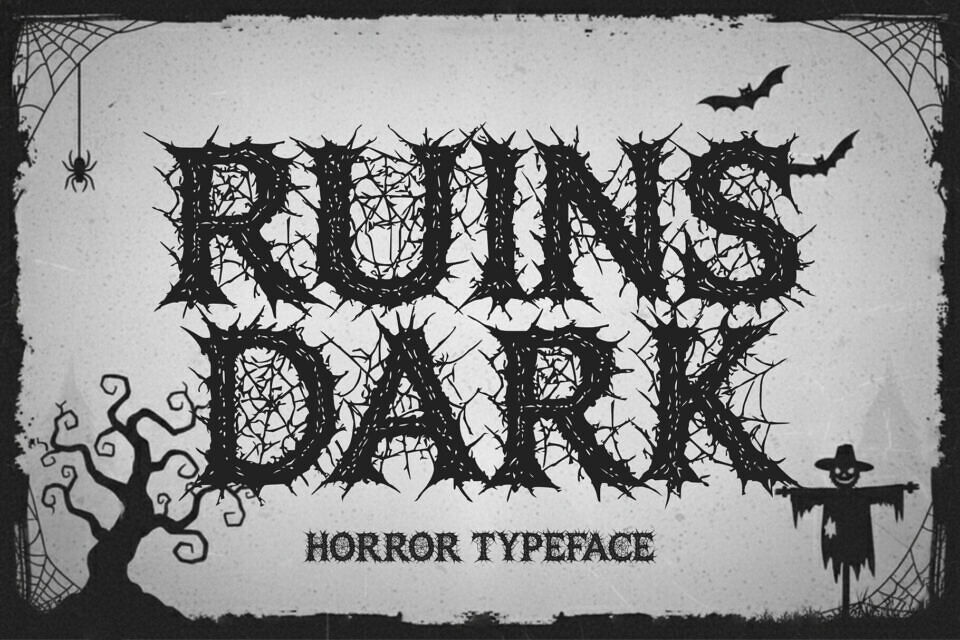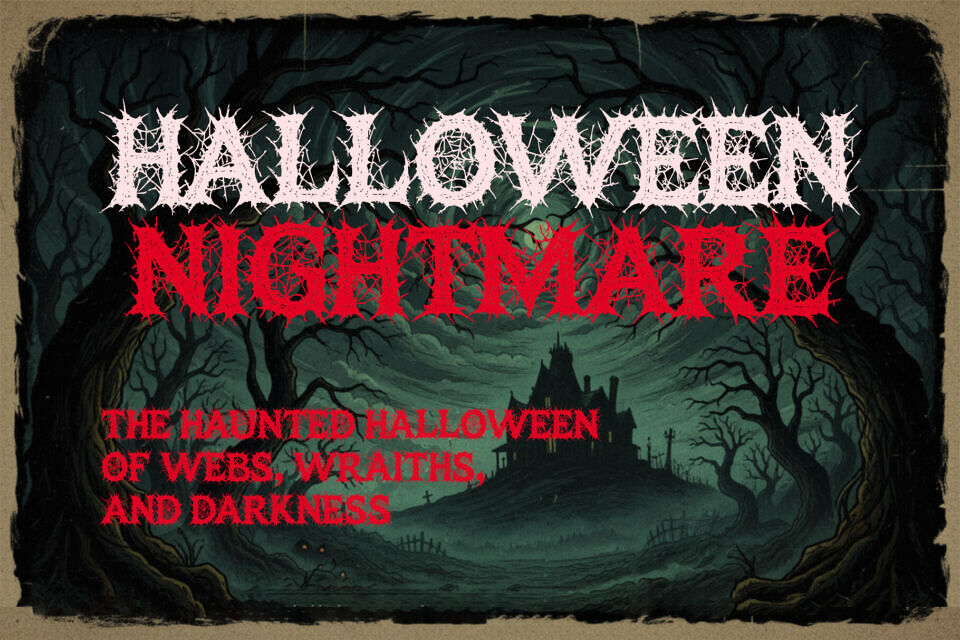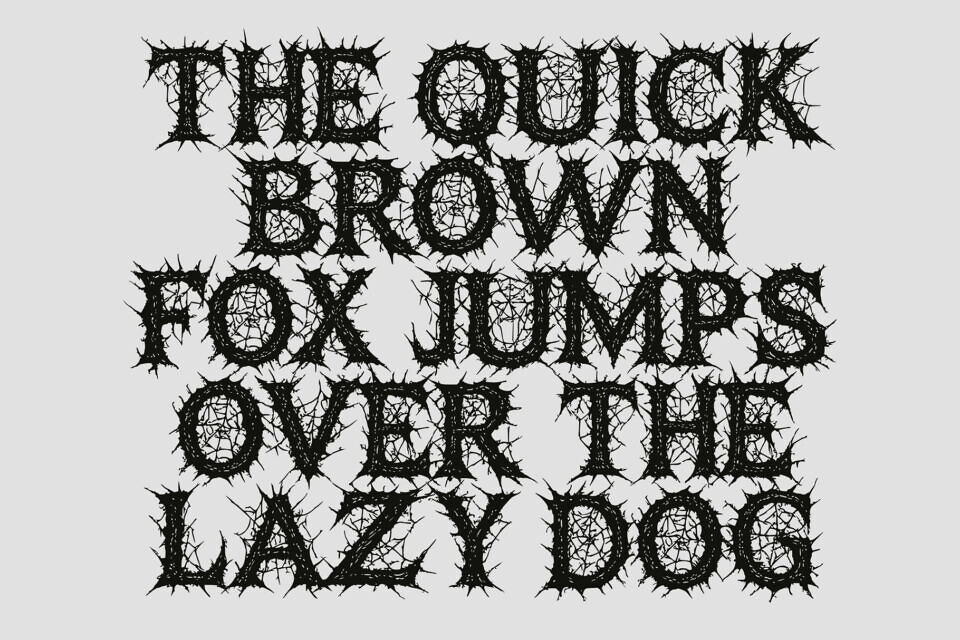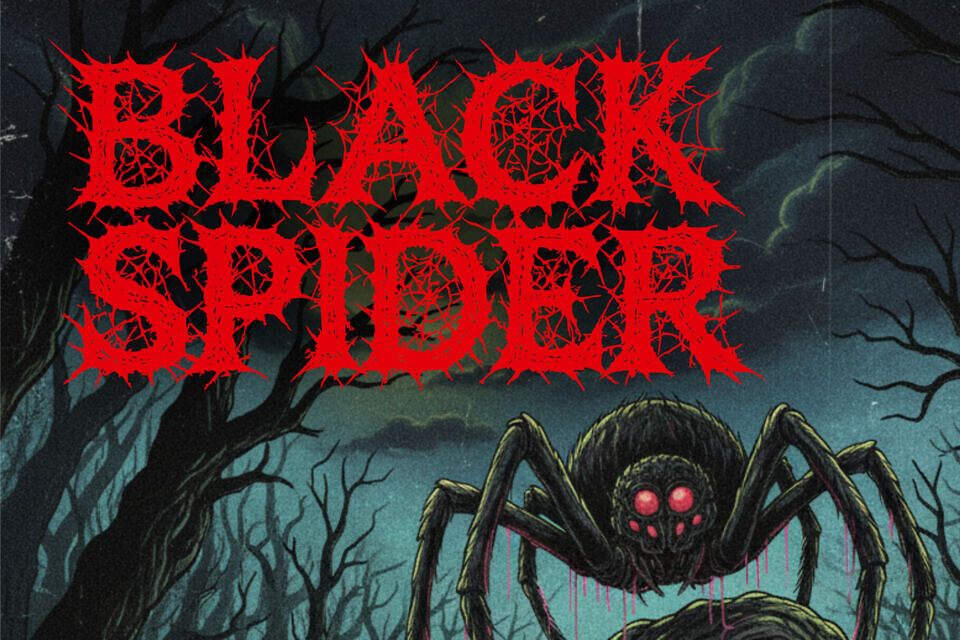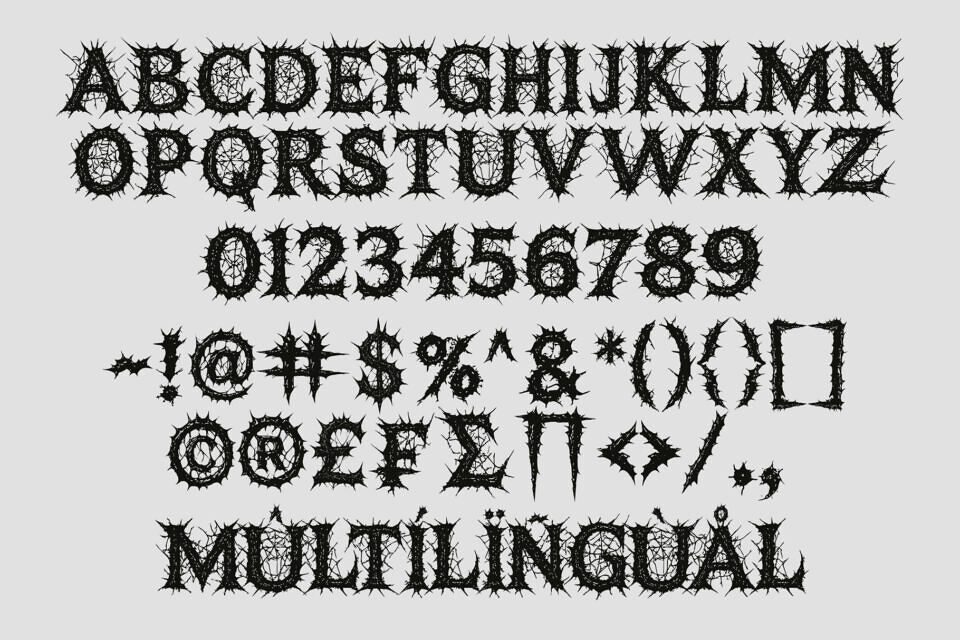
Ruins Dark is a bold and terrifying horror typeface crafted to deliver an intense, decayed, and sinister atmosphere. Designed with jagged edges, distressed textures, and brutal letterforms, this font brings the perfect blend of chaos and darkness into your design projects. Every character looks fractured and weathered, creating a raw aesthetic that feels haunted, eerie, and unsettling.
This font features jagged edges and a worn, eerie appearance, making it instantly striking and unsettling. Drawing from Blackletter’s heavy style, its distorted look suits themed displays. Ideal for heavy metal, horror, and Halloween designs, it adds a dark, aggressive touch to posters, apparel, and more, evoking fear and destruction. Its intense, detailed aesthetic makes it a focal point for any chilling design.